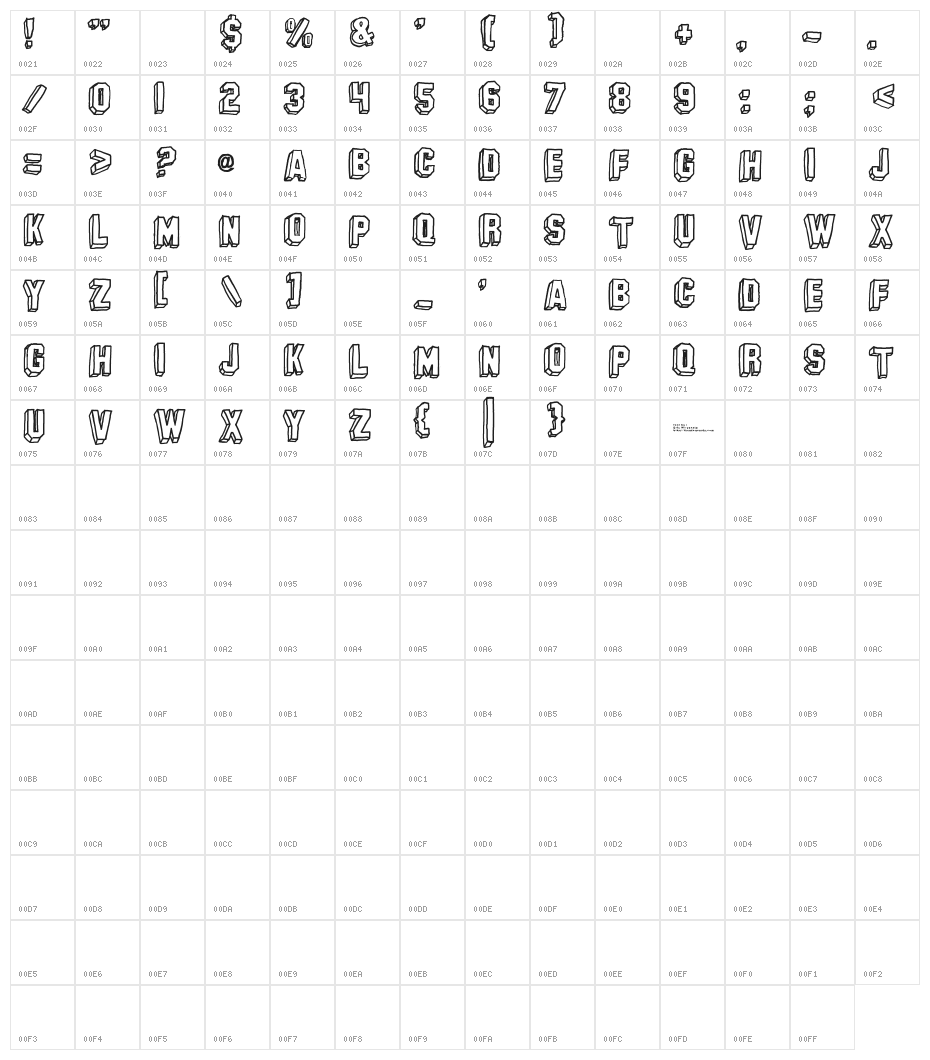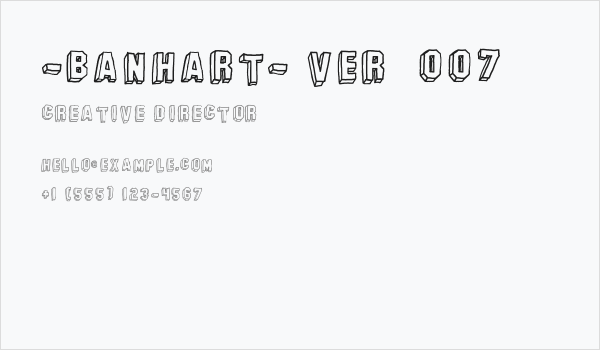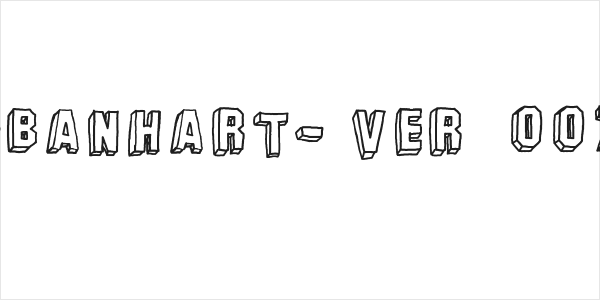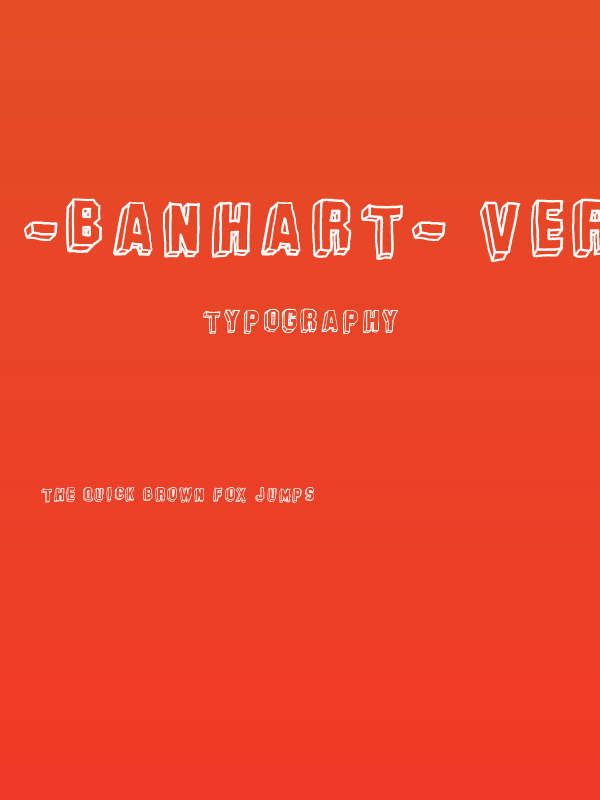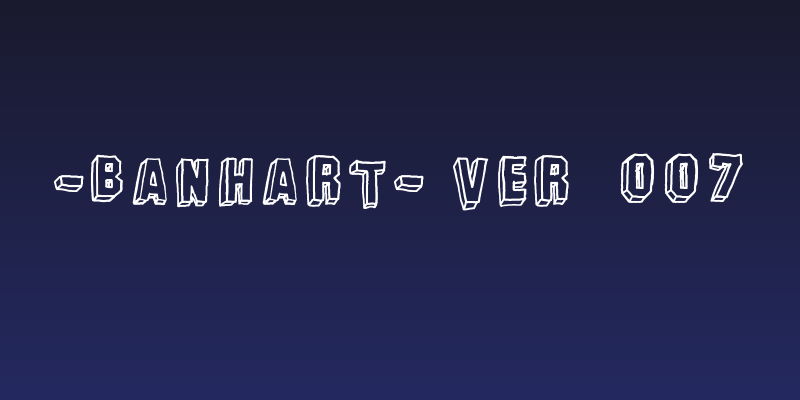
-banhart- ver 007 Font
| Overall Style | Decorative, Artistic, Whimsical |
| Use Case | Logos, Headlines, Posters, Invitations |
| Proposed Projects | ChildrenΓ’β¬β’s books, creative posters, album covers, invitations, branding for artistic or handmade products. |